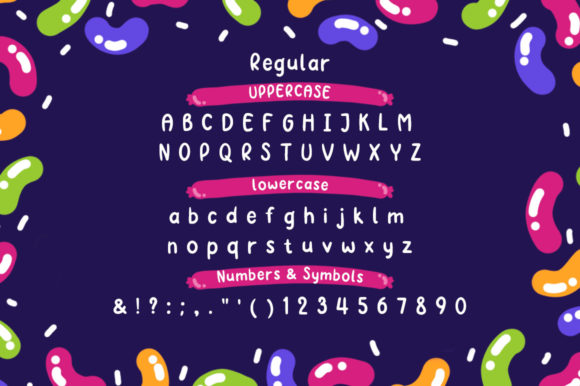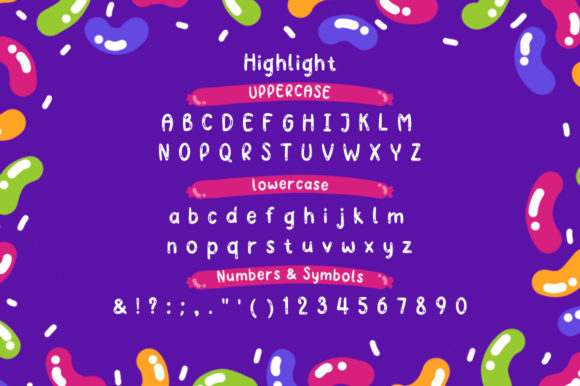
Introduction to Jelly Sticks Font
Have you ever found yourself staring at a blank page, searching for the perfect font to bring your creative idea to life? For many designers, this moment is a familiar struggle. But what if you stumbled upon a font that not only captured your vision but also elevated it to a whole new level? Enter the Jelly Sticks Font, a cool, friendly, and neat display font that’s sure to turn your creative project into a stunning piece of art.
Key Features of Jelly Sticks Font
• High-quality, hand-drawn design perfect for creative projects and design resources.
• Unique, playful style with a transparent background, allowing for seamless integration with any background or image.
• Ideal for use in graphic design, digital art, and other creative projects where a fun and quirky font is needed.
• Features a large character set, including uppercase and lowercase letters, numbers, and punctuation marks.
Honest Review: Jelly Sticks Font
I recently stumbled upon the Jelly Sticks Font, and I must say it’s a delightful addition to any design project. The font’s playful and quirky vibe is perfect for creative projects that need a fun twist.
• Transparent background makes it easy to use in various design scenarios
• Captivating characters that add a touch of whimsy to any design
• Can be used for a variety of design elements, from headings to icons
• Not suitable for professional or formal designs, as it may come across as too casual
• May not be ideal for text-heavy designs, as the font’s uniqueness can be overwhelming
• Does not support a wide range of languages, which may limit its usability in global design projects
Overall, the Jelly Sticks Font is a great design resource for those looking to add some personality to their creative projects. While it may have its limitations, its unique charm makes it a valuable addition to any designer’s toolkit.
To get the most out of the Jelly Sticks Font, use it in conjunction with other design elements, such as icons and graphics. Experiment with different font sizes and colors to create a visually appealing design. You can also use the font in combination with other fonts to create a unique and creative look.
The Jelly Sticks Font is perfect for a variety of creative projects, including logos, branding materials, social media graphics, and presentations. Its high quality and transparent background make it ideal for any design that requires a unique and eye-catching font.